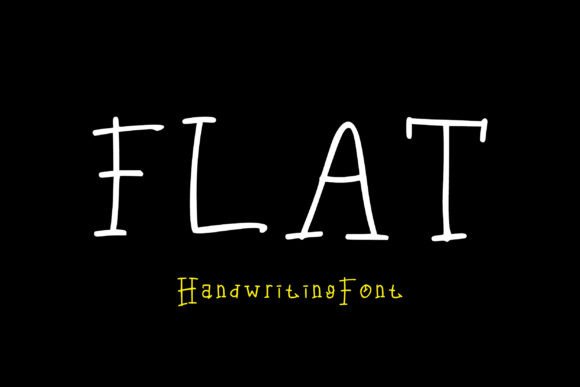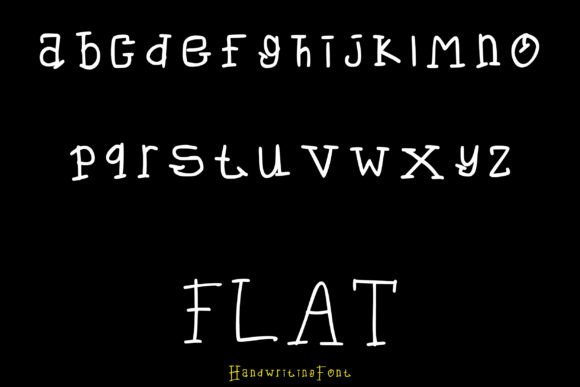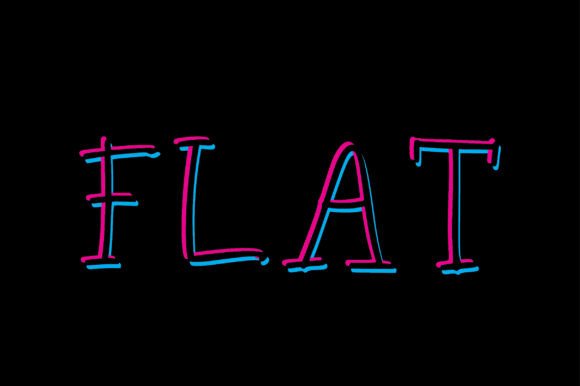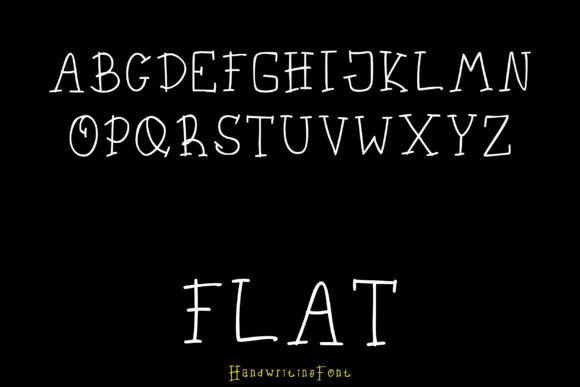
Flat Font
About Flat Font
Flat, with its simple and clean handwritten style, is a font designed to bring a natural and fresh vibe to a wide range of creative projects. Whether you’re working on logos, branding, titles, or other design elements, Flat’s unpretentious and straightforward appearance makes it adaptable to various contexts.
The simplicity of Flat adds a modern and uncomplicated touch to your designs. Its clean lines and natural flow make it a versatile choice for conveying a straightforward and approachable aesthetic. This font is well-suited for projects that aim to communicate a sense of clarity and simplicity.
Flat’s fresh style gives your designs a contemporary and uncluttered look, making it suitable for a variety of creative applications. Whether you’re designing websites, posters, or social media graphics, Flat can contribute to a clean and modern visual language.
Embrace the simplicity and freshness of Flat, and let it be the font that adds clarity and a touch of modernity to your creative projects. With its clean handwritten design, Flat is ready to enhance the visual appeal of your designs, making them approachable and visually engaging.